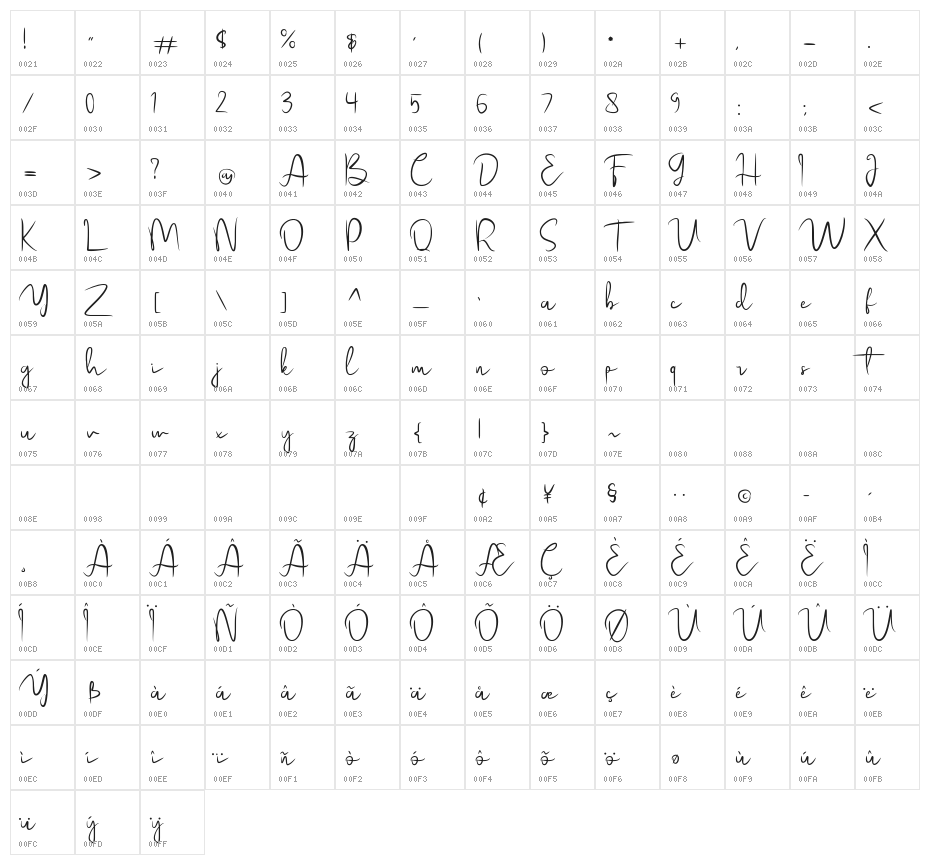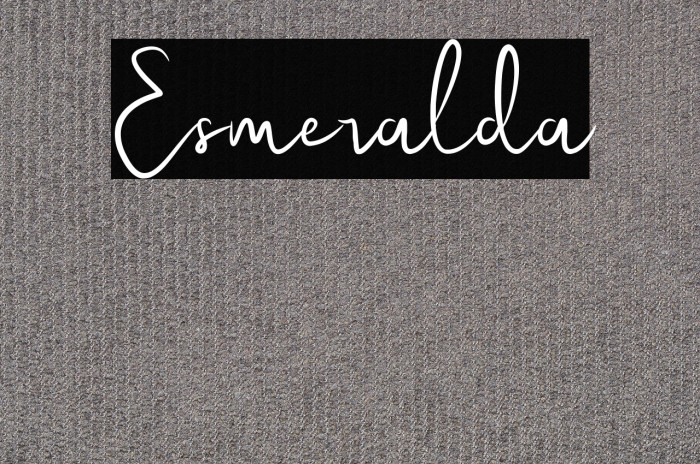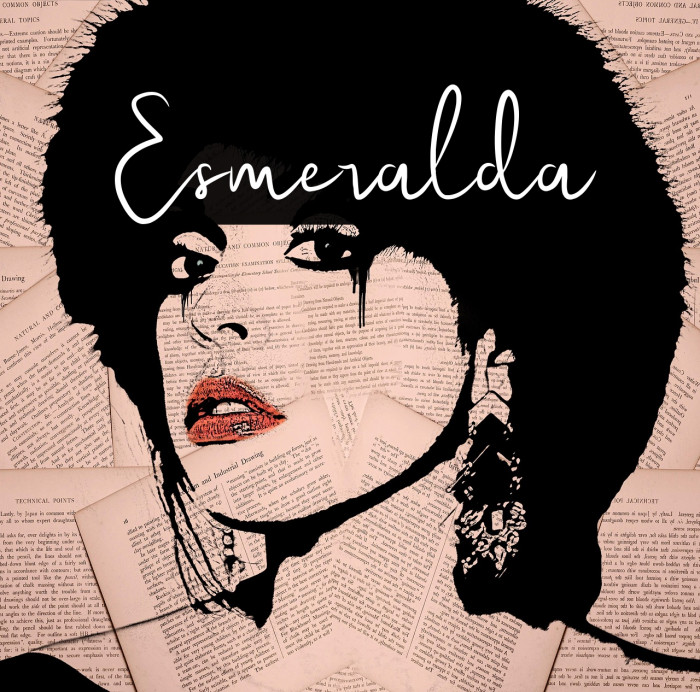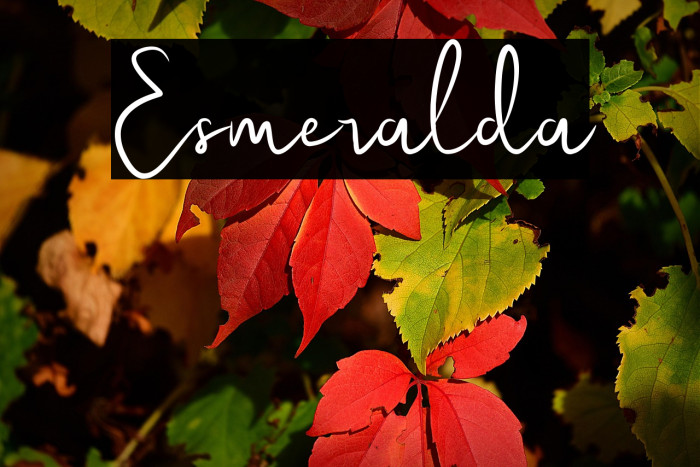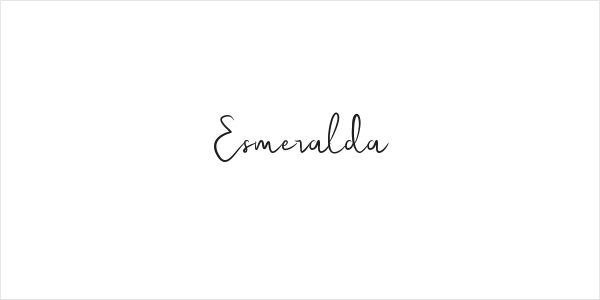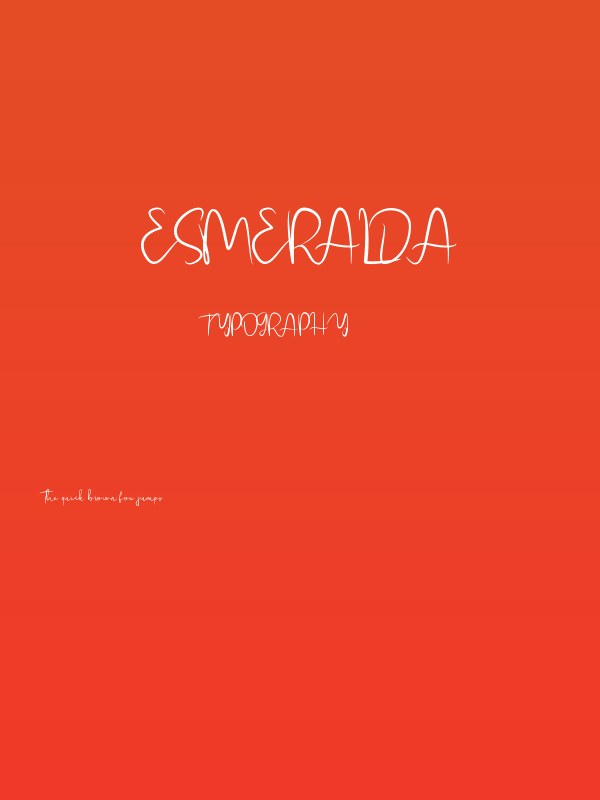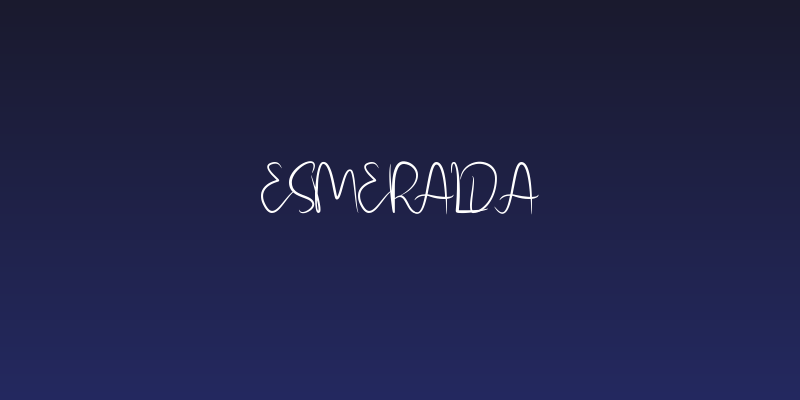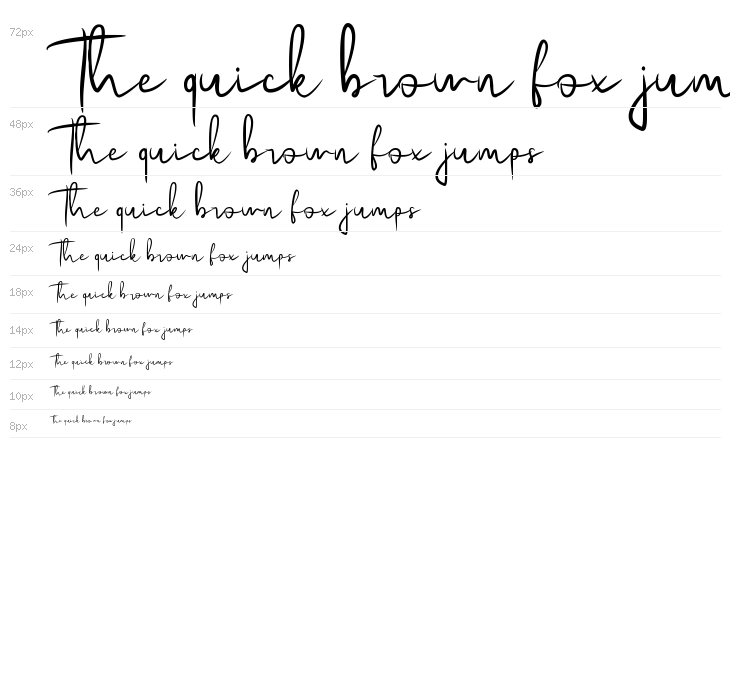
Esmeralda Font
Esmeralda Description
This font features a lively and expressive handwritten style, characterized by its fluid and dynamic strokes. The uppercase letters exhibit a playful, almost whimsical quality with varying line thicknesses that add a sense of movement and energy. The lowercase letters maintain this fluidity, with elegant loops and curves that enhance its handwritten appeal. Numbers and special characters are crafted with the same attention to detail, ensuring consistency across all glyphs. This font's unique style makes it stand out, offering a personal touch that is both modern and artistic.
Use CaseLogos, Headlines, Invitations
Proposed ProjectsIdeal for creative projects such as invitations, greeting cards, branding, and social media graphics where a personal, artistic touch is desired.